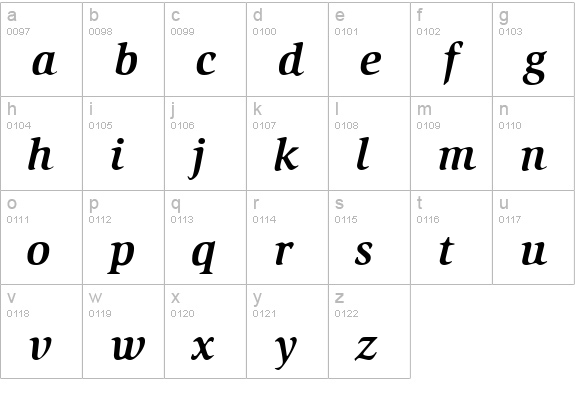
Slimbach Bold Italic Font Details
Slimbach Bold Italic is a strong, high-contrast, italic variant in the Slimbach typeface family \xE2\x80\x94 well suited to headlines, attention-grabbing titles, and strong calls-to-action.
Slimbach Bold Italic is a visually stunning font that effortlessly combines modern elegance with a touch of sophistication. Its sleek and slanted design adds a dynamic twist to any project, making it perfect for creating eye-catching headlines, logos, and branding materials. With its bold strokes and italicized form, Slimbach Bold Italic commands attention and exudes confidence. This font's unique blend of curves and angles creates a harmonious balance that draws the eye and captivates the viewer. Whether used in print or digital media, it leaves a lasting impression. But what sets Slimbach Bold Italic apart is not just its impeccable design; it is also the fact that it is freely available to download at FontsMarket.com. This means that you can effortlessly bring this remarkable font into your creative endeavors without any cost. Now, you can elevate your projects with this premium typeface while staying within your budget. Slimbach Bold Italic offers versatility and flexibility, making it suitable for a wide range of design applications. Whether you're designing a magazine spread, a website layout, or a promotional poster, this font will consistently deliver a polished and professional look. So why settle for ordinary when you can have extraordinary? Download Slimbach Bold Italic from FontsMarket.com today and unlock the creative potential of this innovative font. Transform your designs into works of art and make a lasting impression with the captivating power of Slimbach Bold Italic.